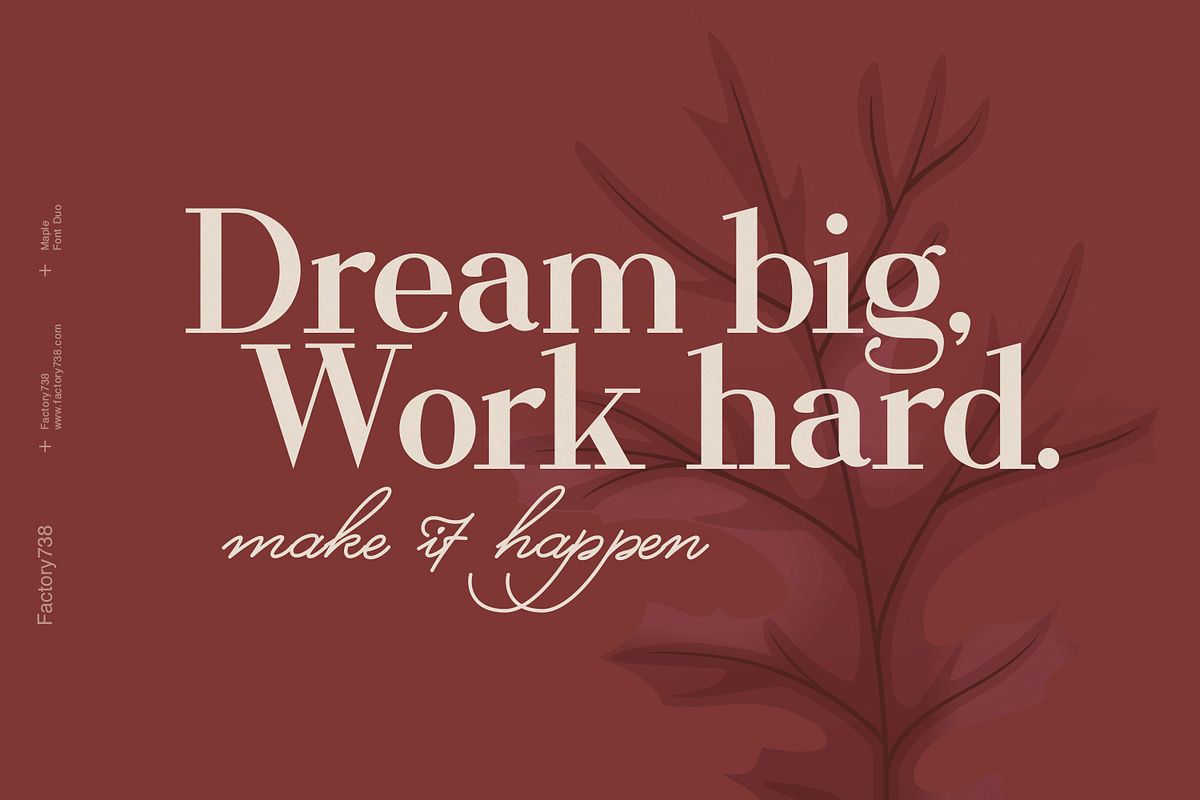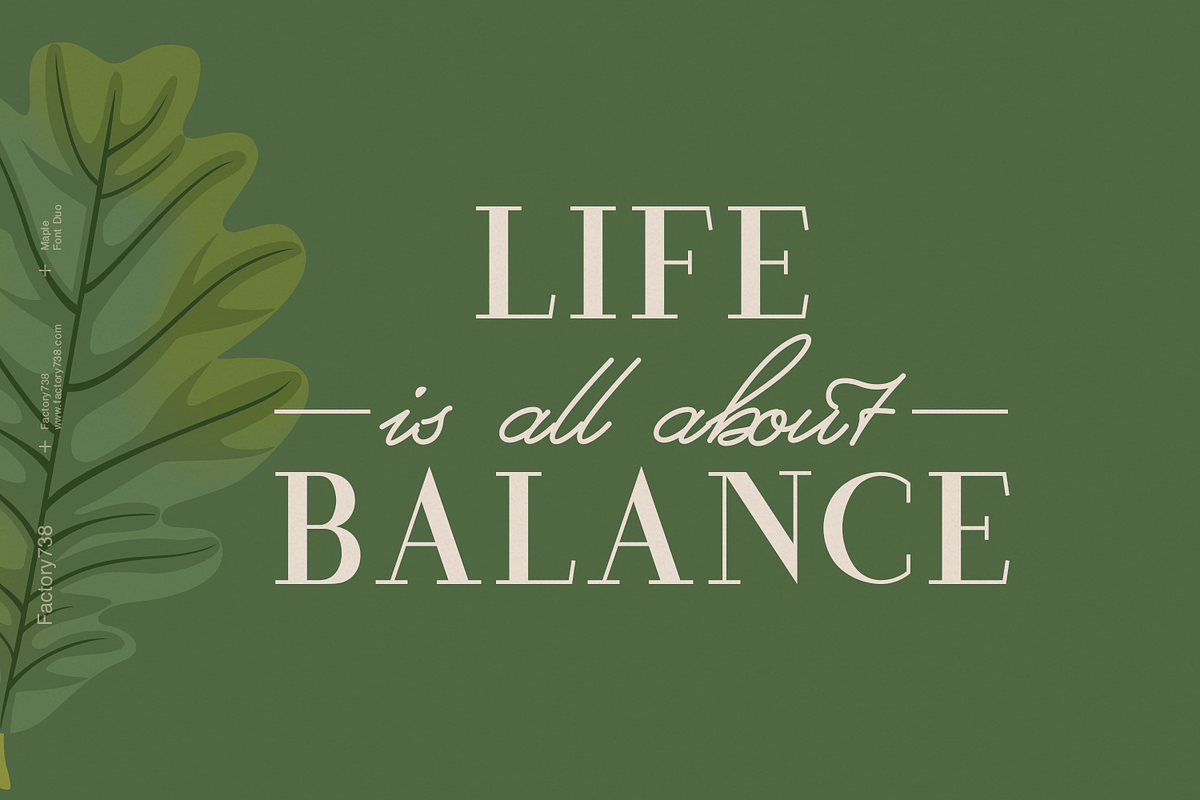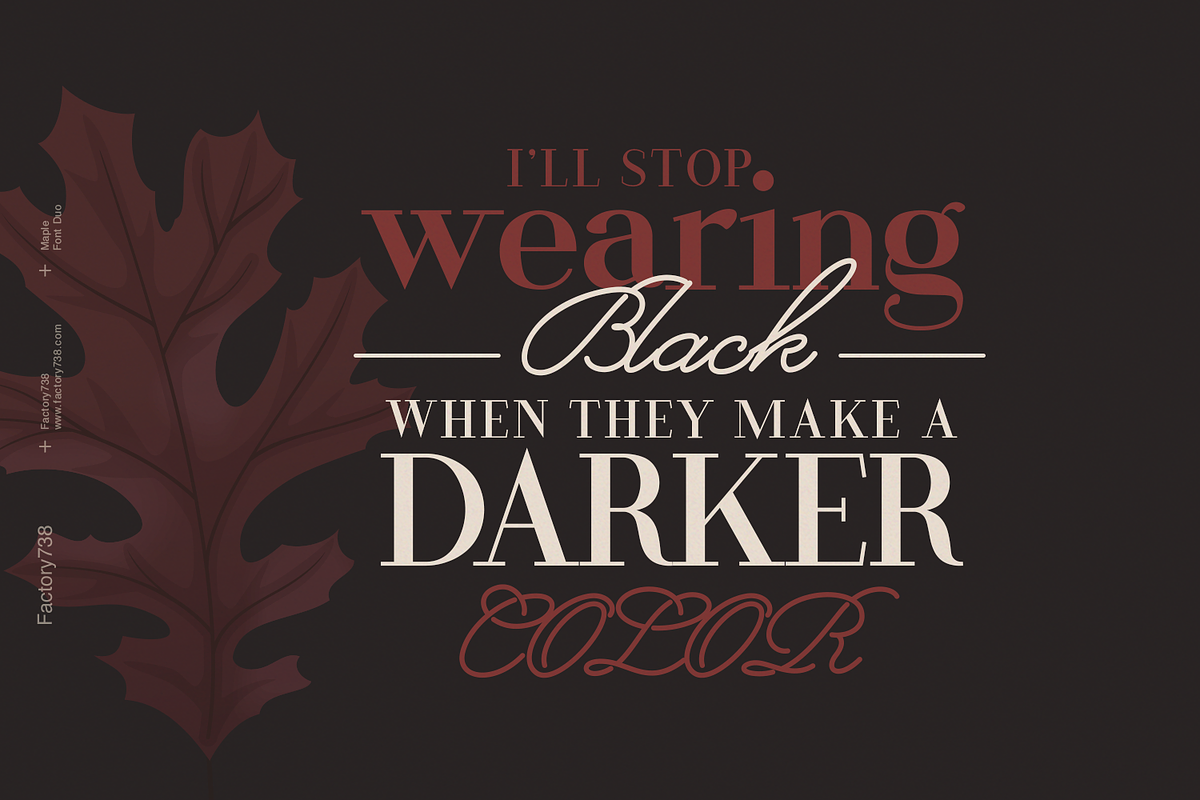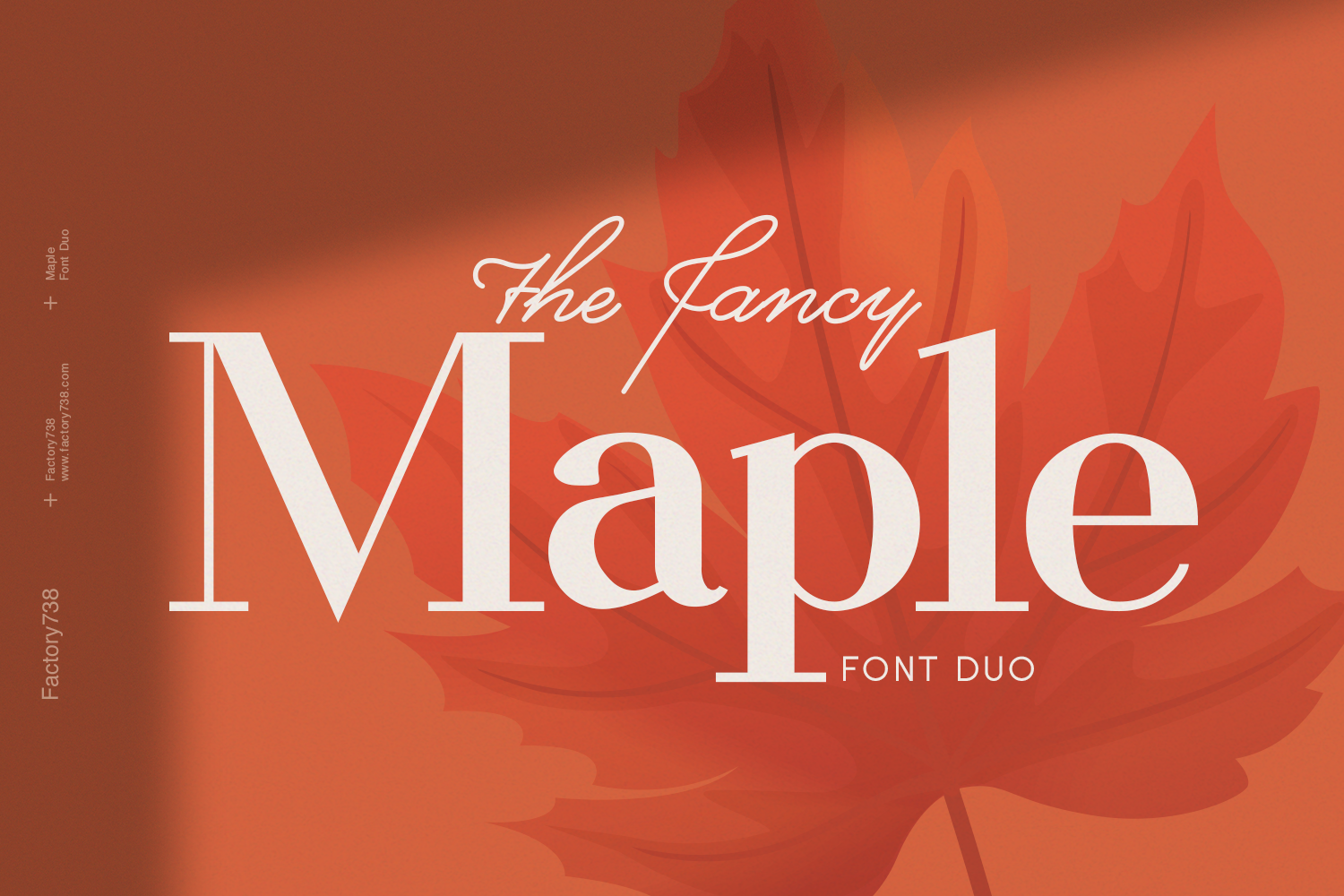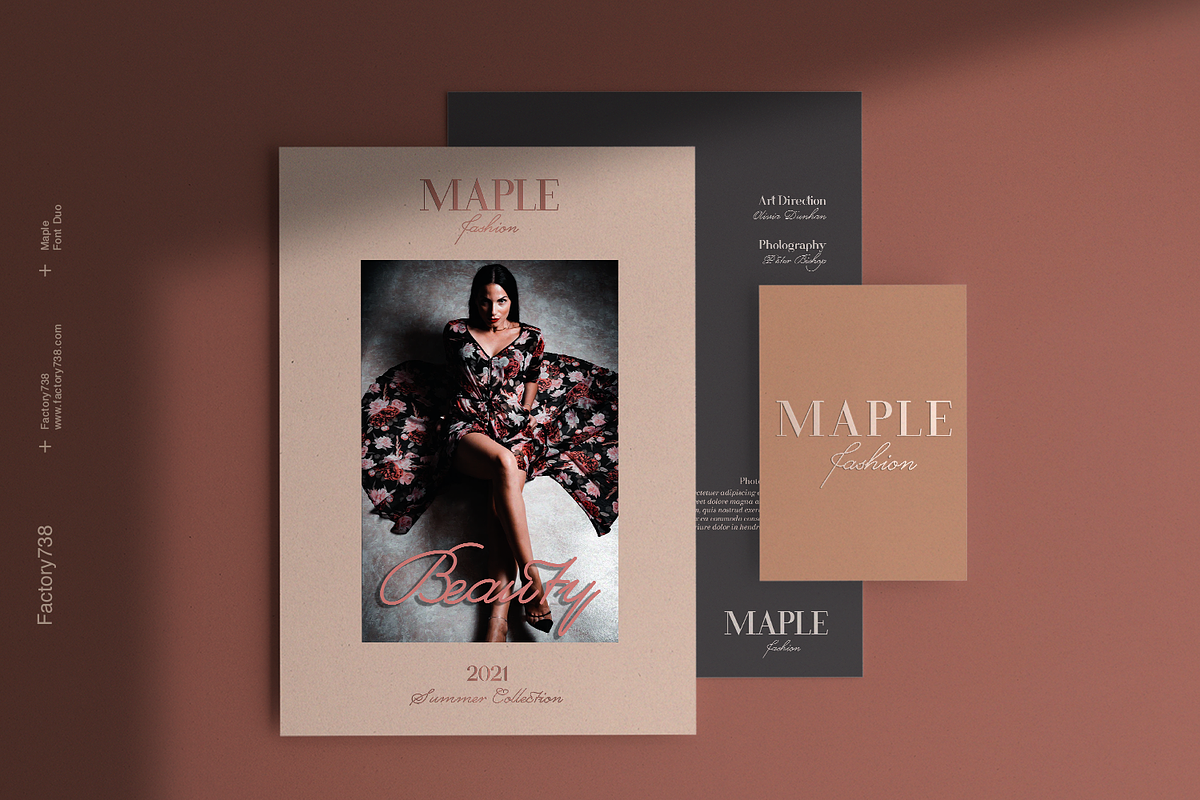
Maple Font Duo
Maple Font Duo is a classy, contemporary pair of script and sans-serif fonts. Its offers beautiful typographic harmony for a diversity of design projects, headlines, branding visual identity, poster, logo, magazines and etc.
- 2 fonts (Script and Serif)
- Upper and lowercase characters, numerals, punctuation